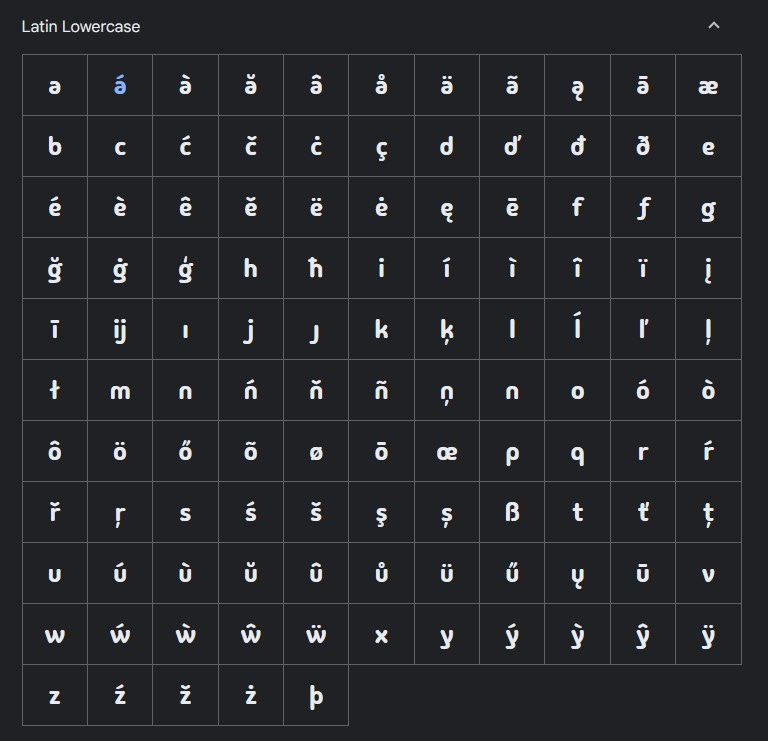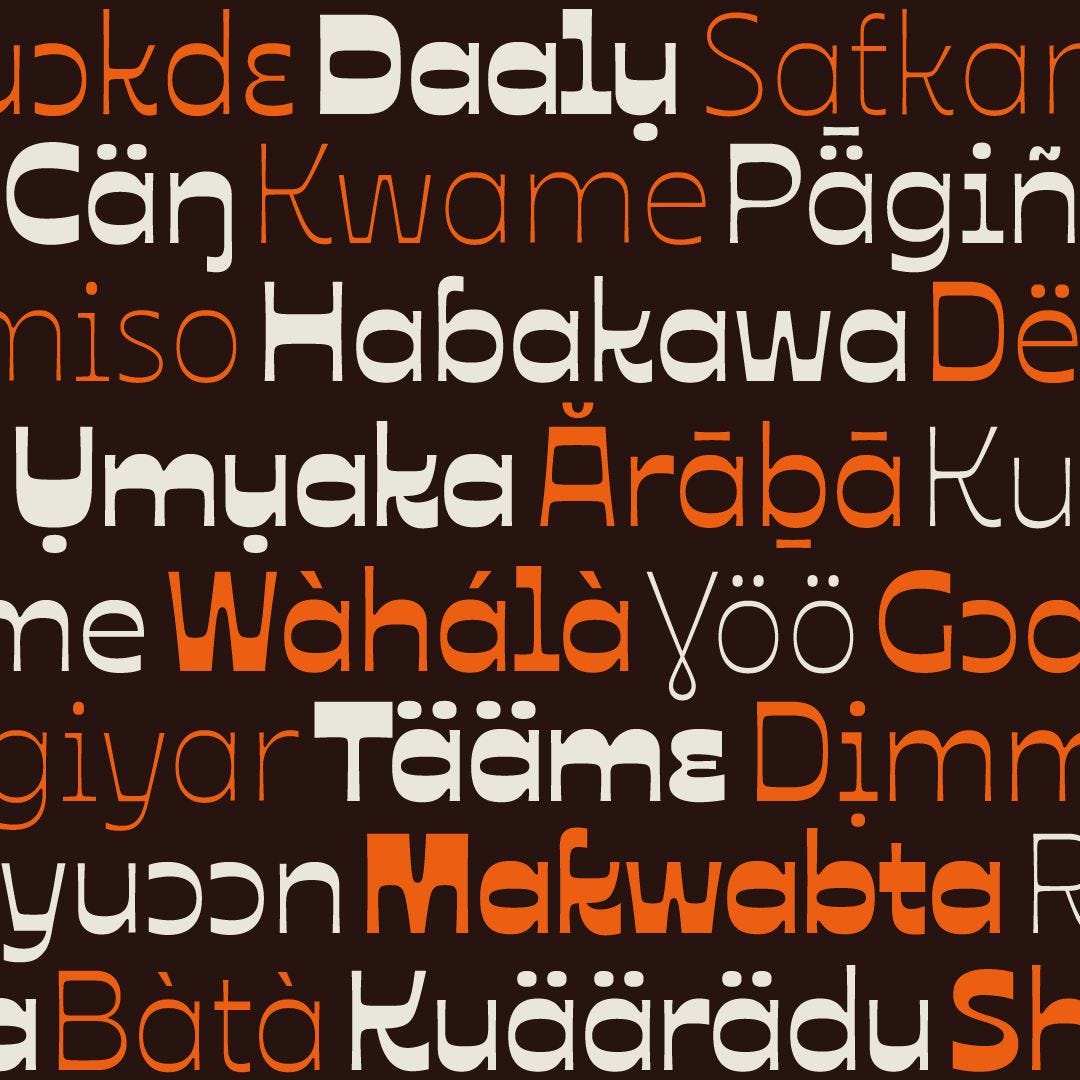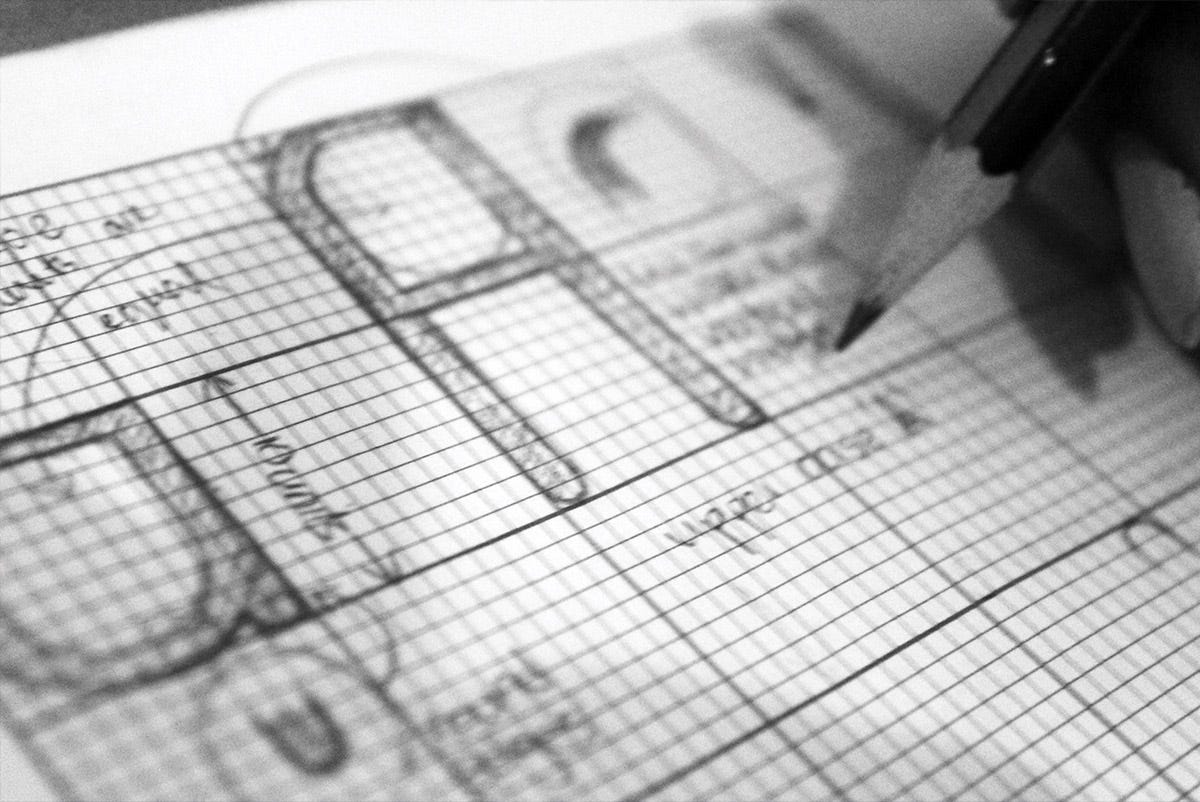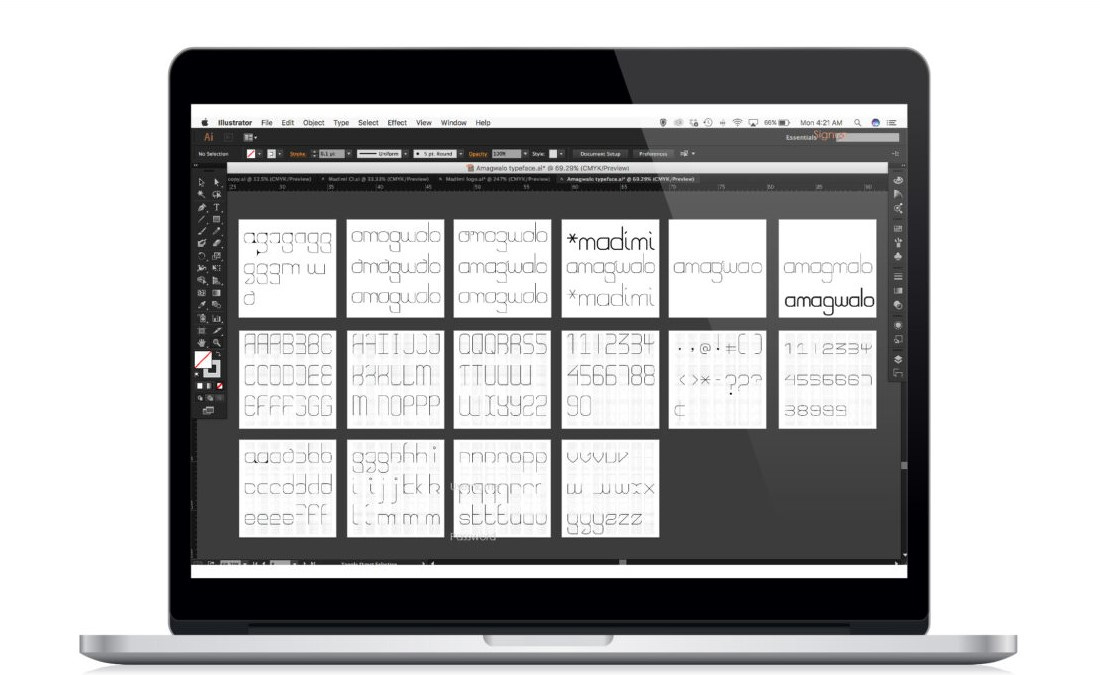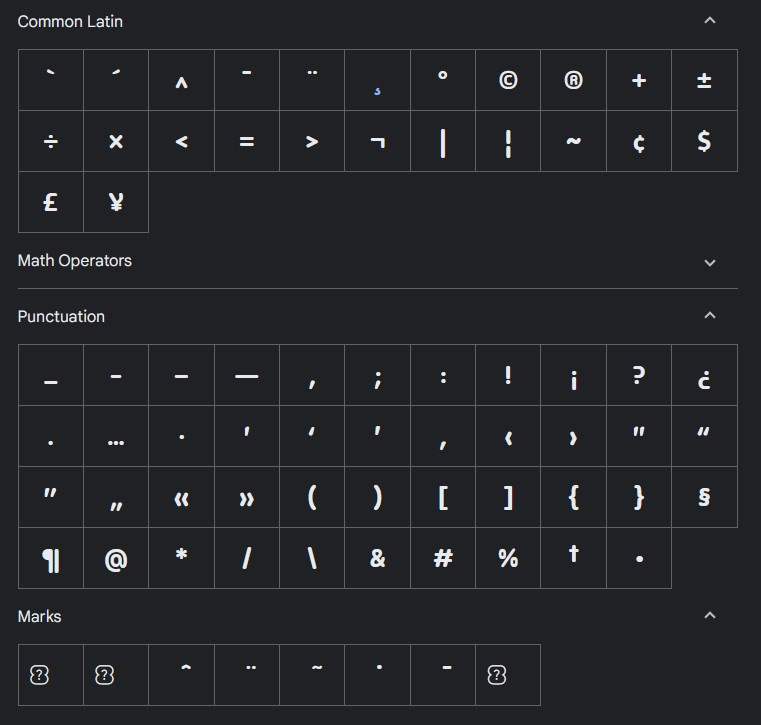
Google Fonts adds 2 typefaces—created by a Nigerian and a Zimbabwean designer—to its catalogue
"Ojuju" by Chisaokwu Joboson, a Nigerian-based brand and type designer, and "Madimi" by Taurai Valerie Mtake, a Zimbabwean visual communicator and type designer are the latest addition to Google Fonts
As part of its latest addition to its robust catalogue of open-source fonts, Google Fonts has added two typefaces, made by a Nigerian designer and a Zimbabwean designer, to its catalogue.
Ojuju, a san-serif typeface of an afro-grotesque style, created by Chisaokwu Joboson, a Nigerian-based brand and type designer, and Madimi, a rounded-sans with a mixed geometric and organic design, created by Taurai Valerie Mtake, a Zimbabwean visual communicator and type designer, are part of Google Fonts’ latest addition to its catalogue.
Ojuju Typeface by Chisaokwu Joboson
Rooted in the eye cuttings on the masks of African masquerades, the Ojuju typeface is distinct with varying apertures as it moves from extra-light to bold. With 7 weights, 1000+ glyphs, and support for 874 languages, the Ojuju typeface draws inspiration from various African-spirited dancers.
“I’ve always been fascinated by masquerades growing up. Have a lot of memories of them whenever I think of home. Their multifaceted identities, swift movements, fiery looks, and the intriguing stories of how they came to be,” Joboson, the founder of Lagos-based independent type foundry - Ụdị Foundry, wrote in a social media post announcing the release of the typeface on Google Font. “It was a no-brainer when Dave Crossland and Thomas Phinney reached out to me (all thanks to Simon Charwey) to design an open-source typeface of African essence that ‘Ojuju’ would be the one.”
“Ojuju, the typeface, is like a Masquerade. It’s a reverse contrast variable font designed by me under the direct supervision and design guidance of Mirko Velimirovic,” he added.
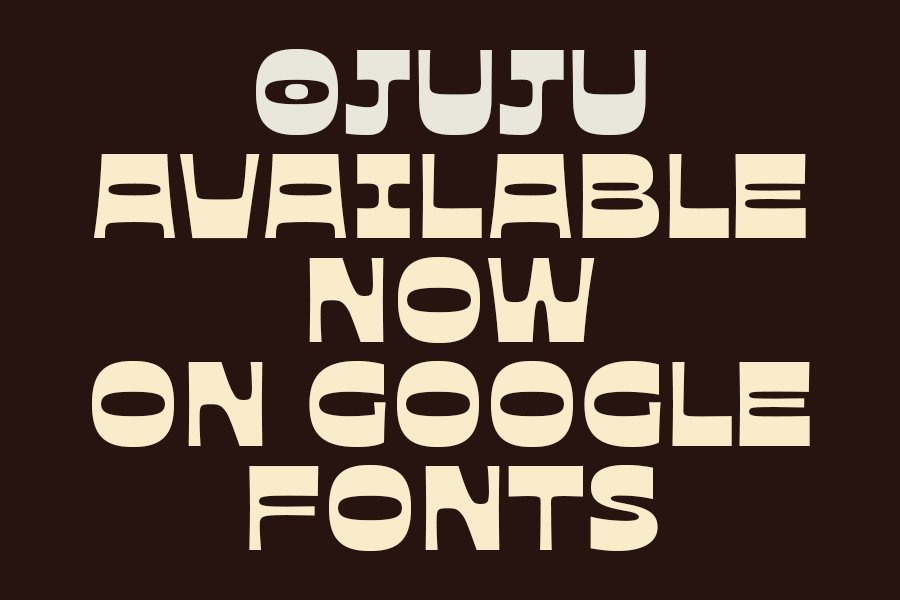
Madimi Typeface by Taurai Valerie Mtake
Mtake’s Madimi typeface takes inspiration from the gently curved geometry of certain Southern Afrikan graphic symbols. Circles are a main feature, the circle being a shape that represents the womb of a woman in KiNtu symbologies.
“As a graphic designer, I am concerned with how ‘zvinyorwa zvezviratidzo zvevanhu’ (Nguni writing symbols) of Southern Afrika have become a staged authenticity instead of a real cultural practice,” Mtake, the Zimbabwe-born type designer based in Sweden, wrote.
“The idea behind this typeface is to act as a sort of subtle visual subtext of Afrikan visual traditions, like the curved lines of a lusona drawing, which is hoped to distinguish it from standard typefaces of the Latin alphabet, as we move towards greater incorporation of indigenous writing and graphic systems in our design texts.”
The Madimi typeface includes all uppercase, lowercase, and numerical glyphs, and is available in 458 languages.